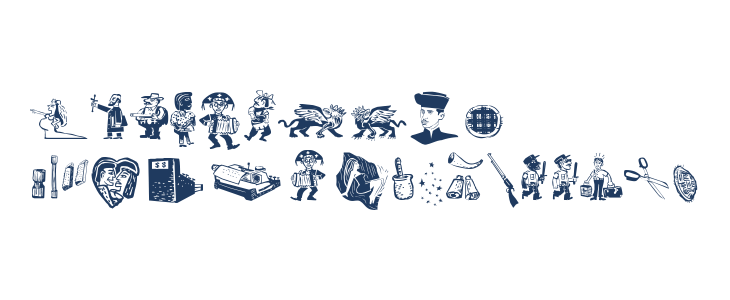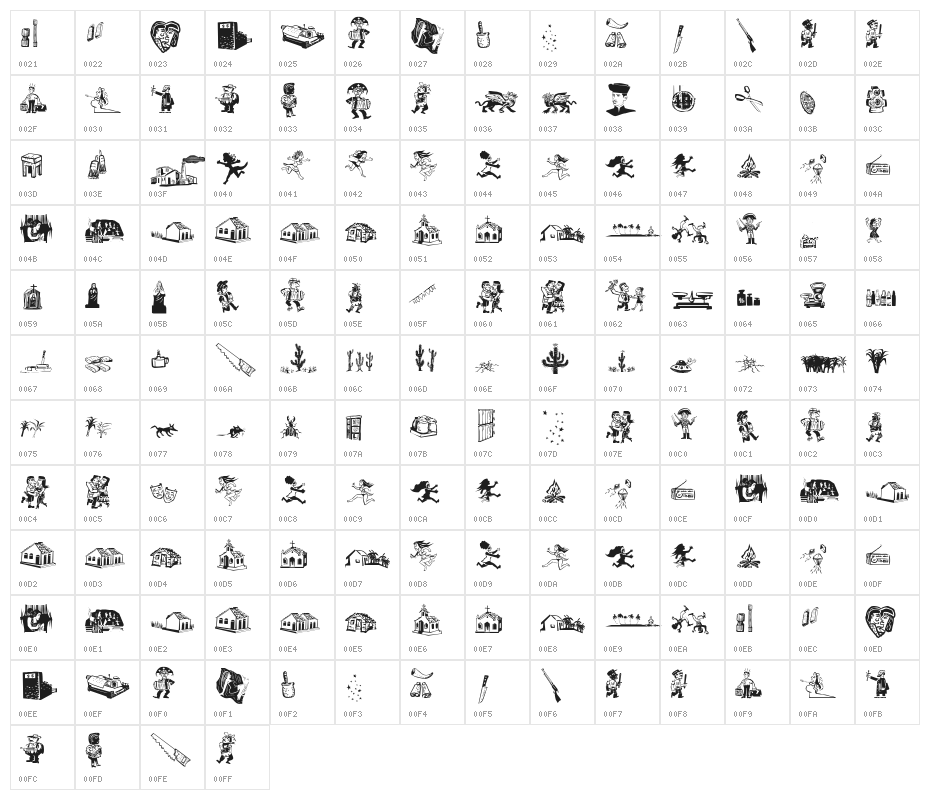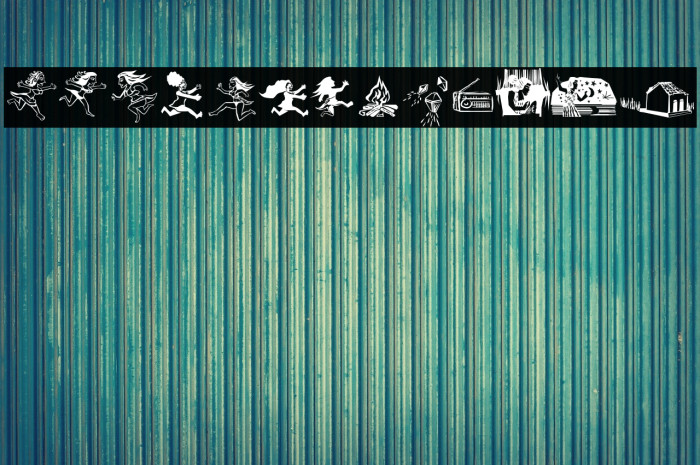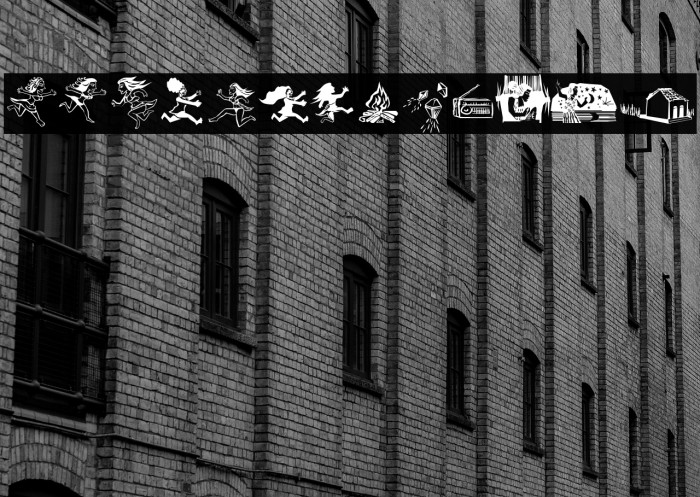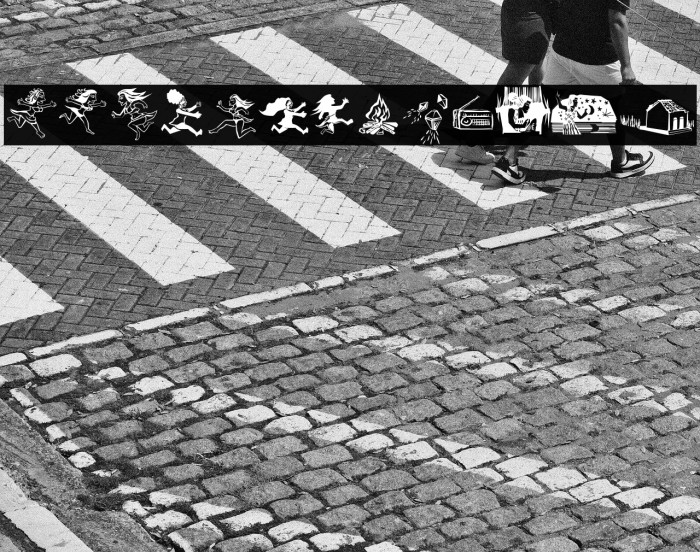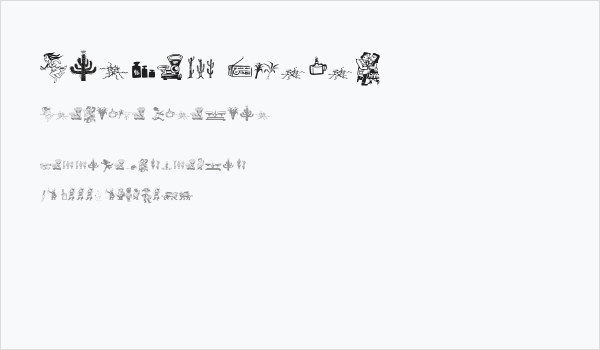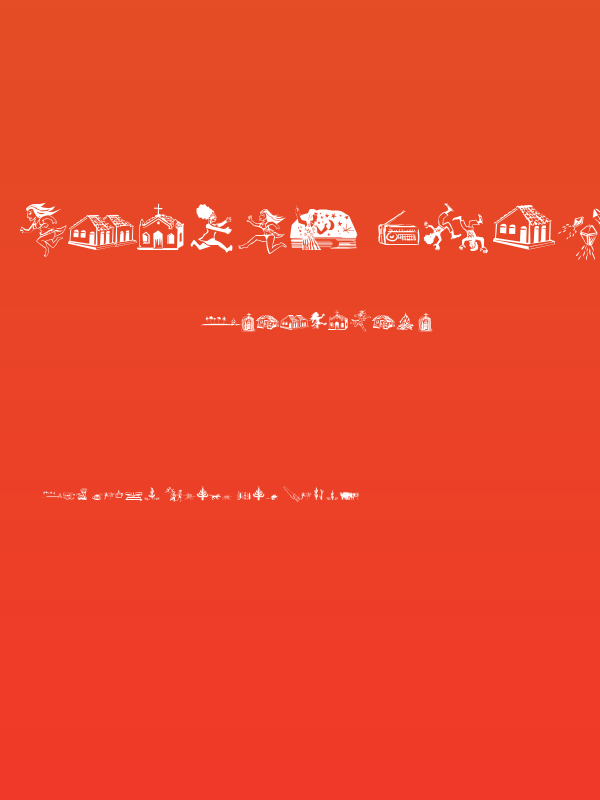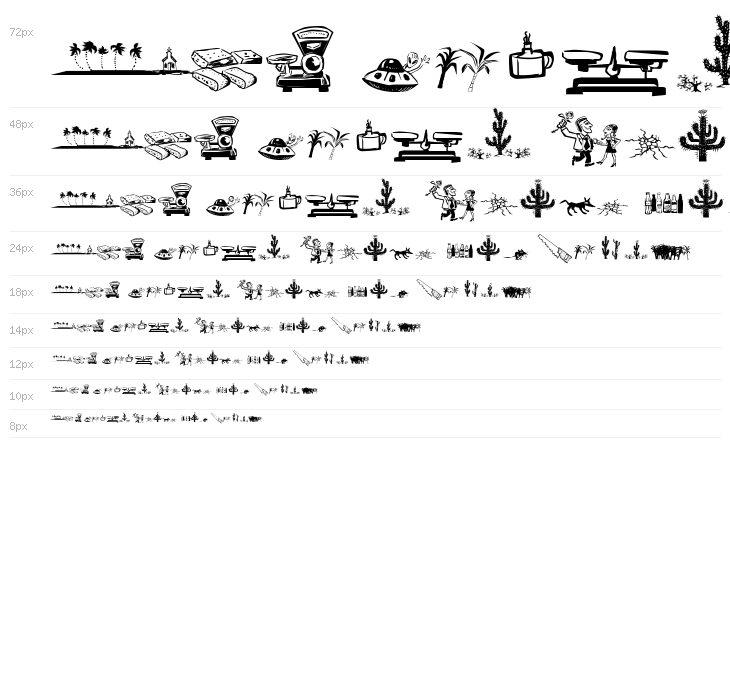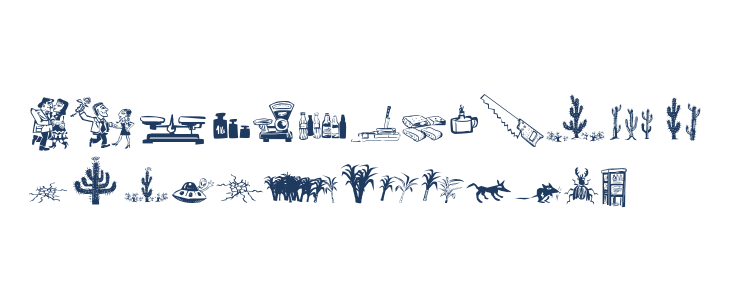
Cordel Junina Font
Cordel Junina Description
A decorative display font composed of detailed, hand-drawn illustrations inspired by Brazilian folklore, rural life, and traditional festivities. Each character is represented by a unique pictogram, featuring people, animals, musical instruments, and cultural symbols, rendered in a bold, high-contrast, woodcut style.
| Overall Style | Decorative, Folk, Vintage |
| Use Case | Headlines, Posters, Logos, Themed Graphics |
| Proposed Projects | Festival posters, cultural event branding, book covers, educational materials, themed invitations, decorative signage. |